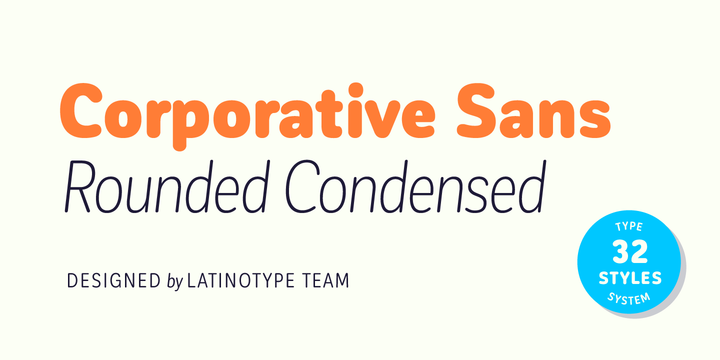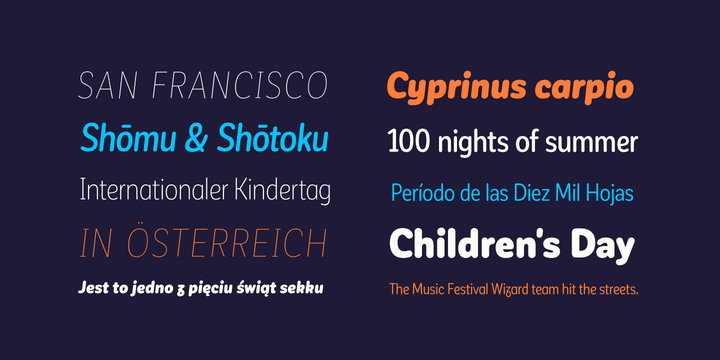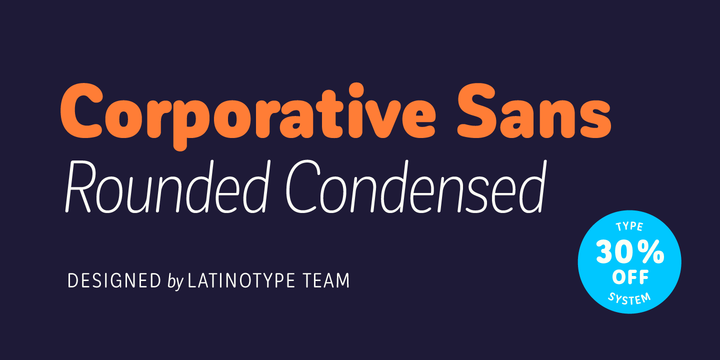
Corporative Sans Round Condensed Font Family
Corporative Sans Rounded Condensed is the narrowed version of Corporative Sans Rounded that offers high performance when using for text, what makes it the perfect match for Andes Rounded.